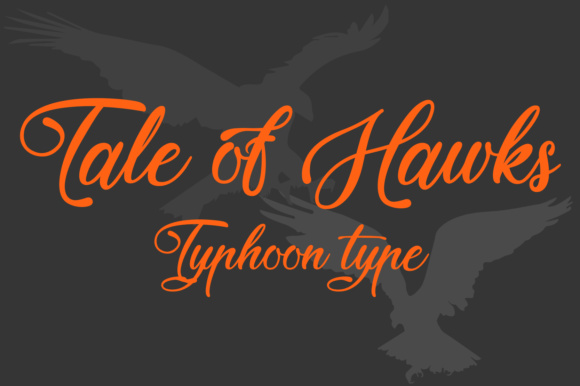
Tale of Hawks Font
About Tale of Hawks Font
Tale of Hawks is a beautiful, versatile title script that will add amazing impact to all your designs! This font has a bold look, and works well in both vintage and modern designs.